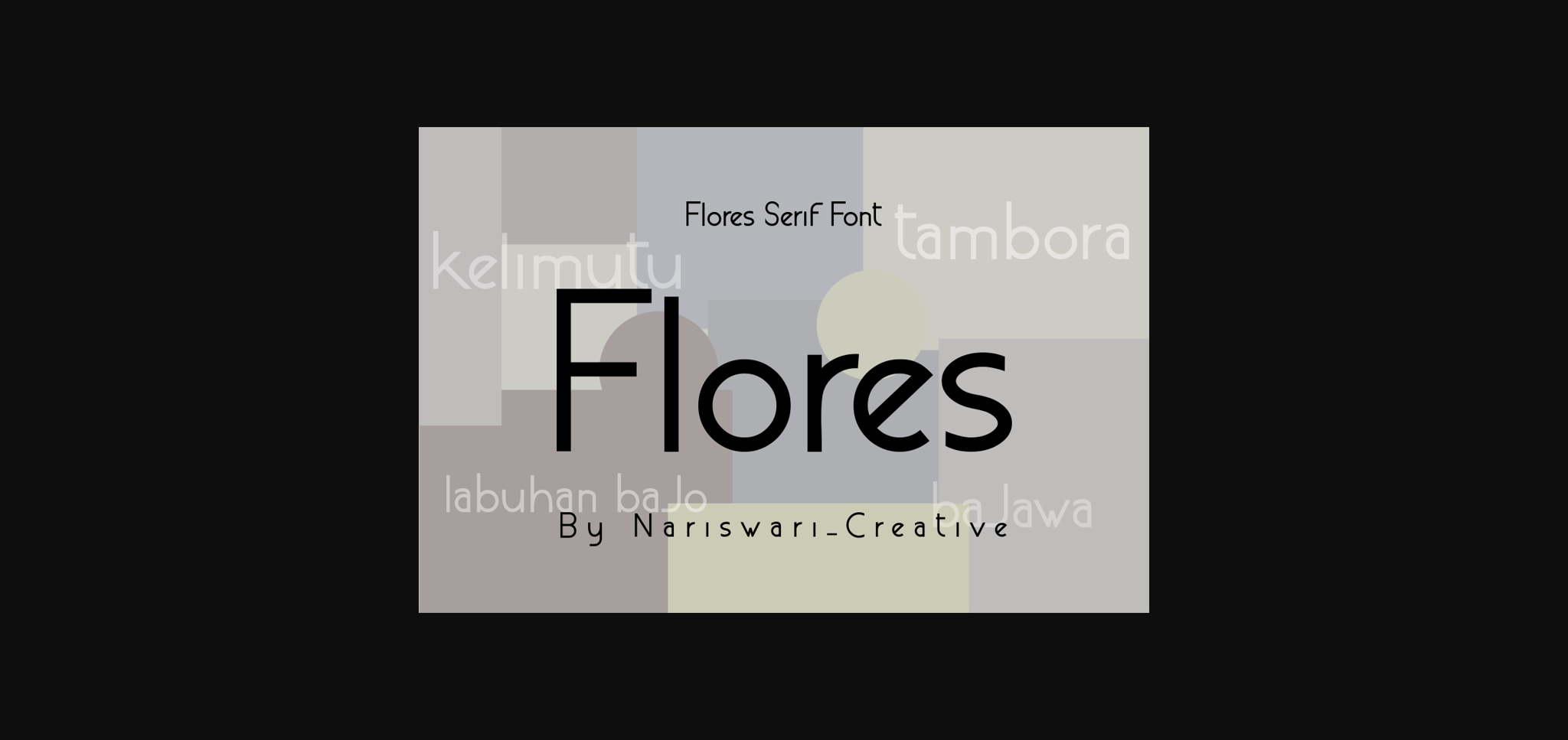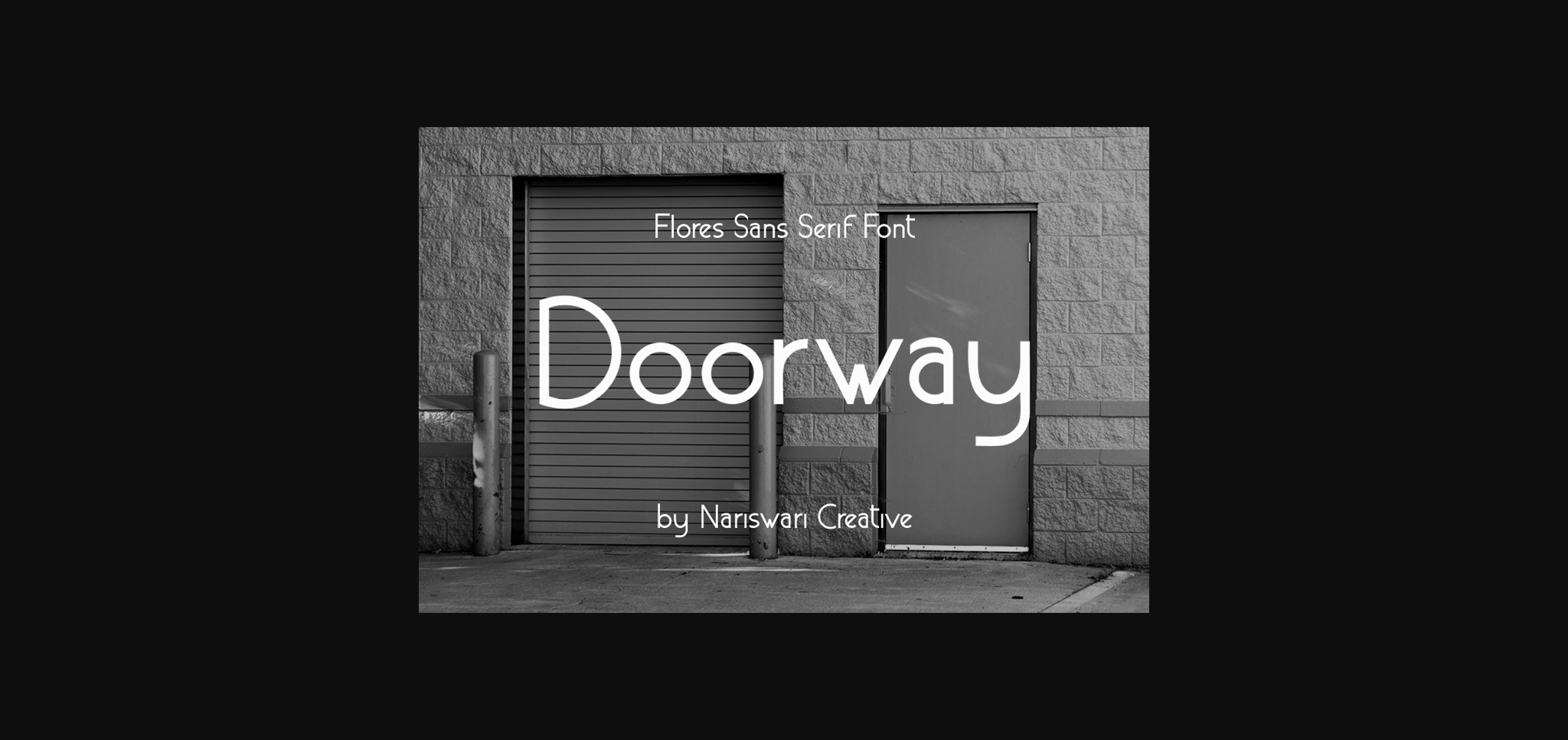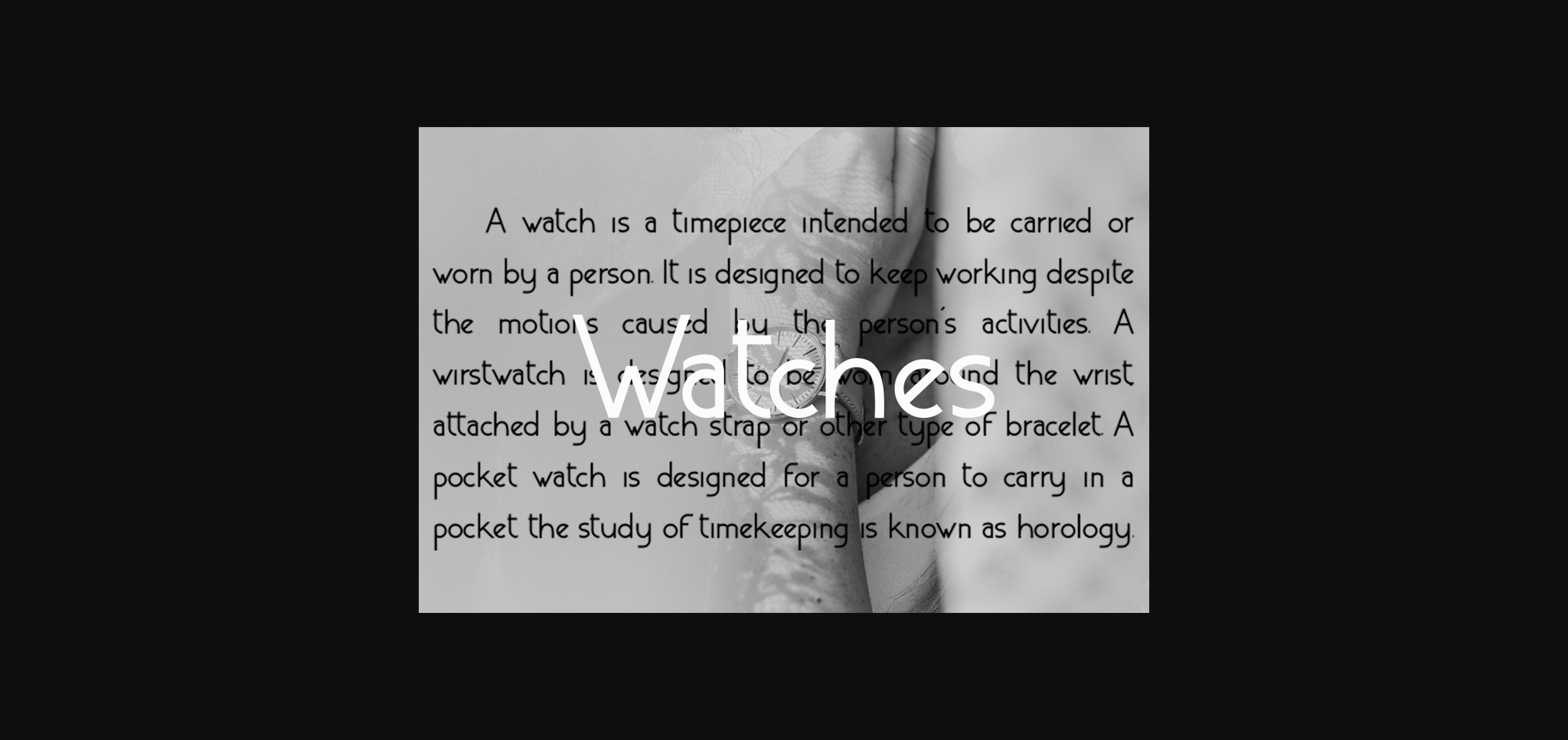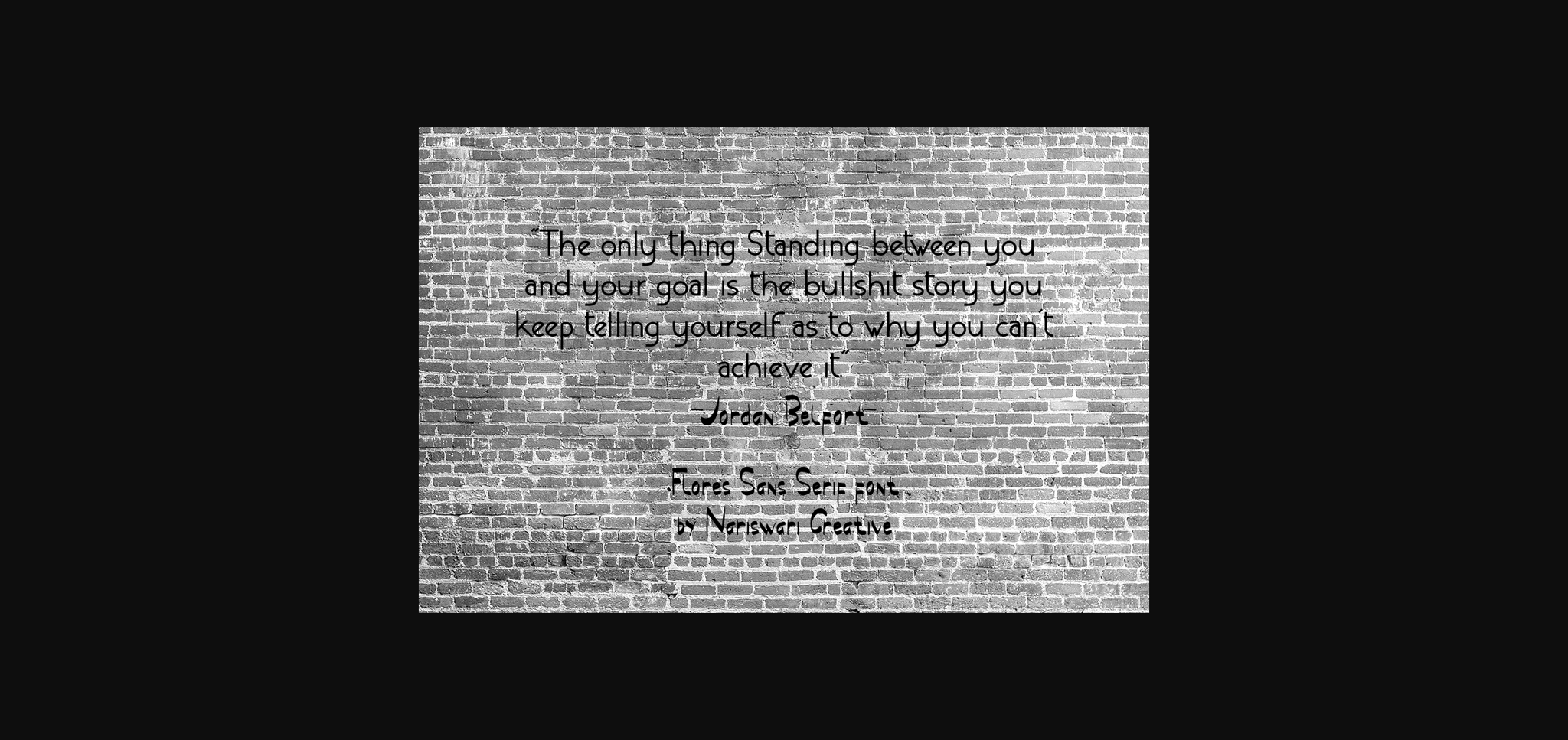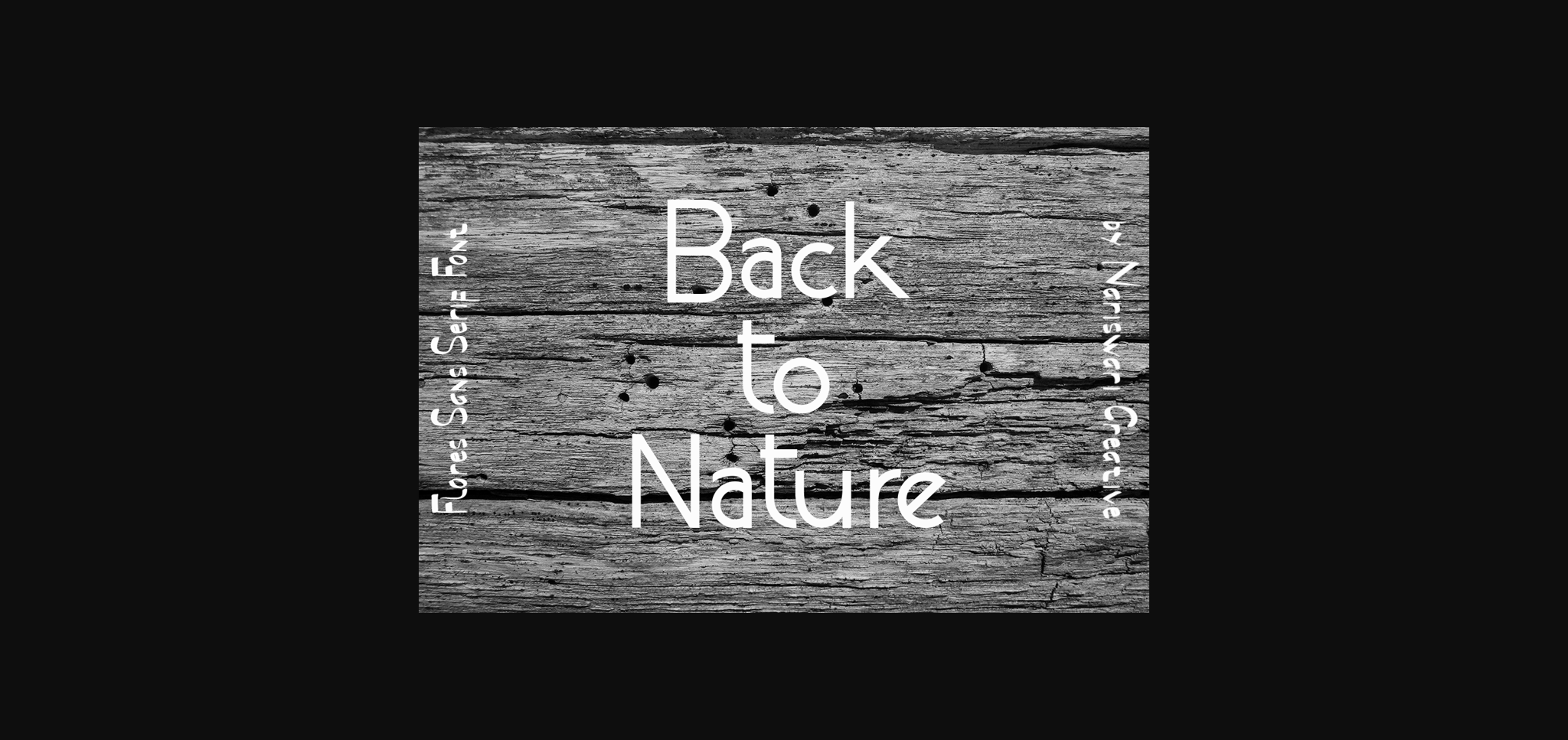
Flores Font
About Flores Font
Flores is a simple sans serif font. With its neat and beautiful arrangement of letters, this typeface will look outstanding in both formal and non-formal designs.